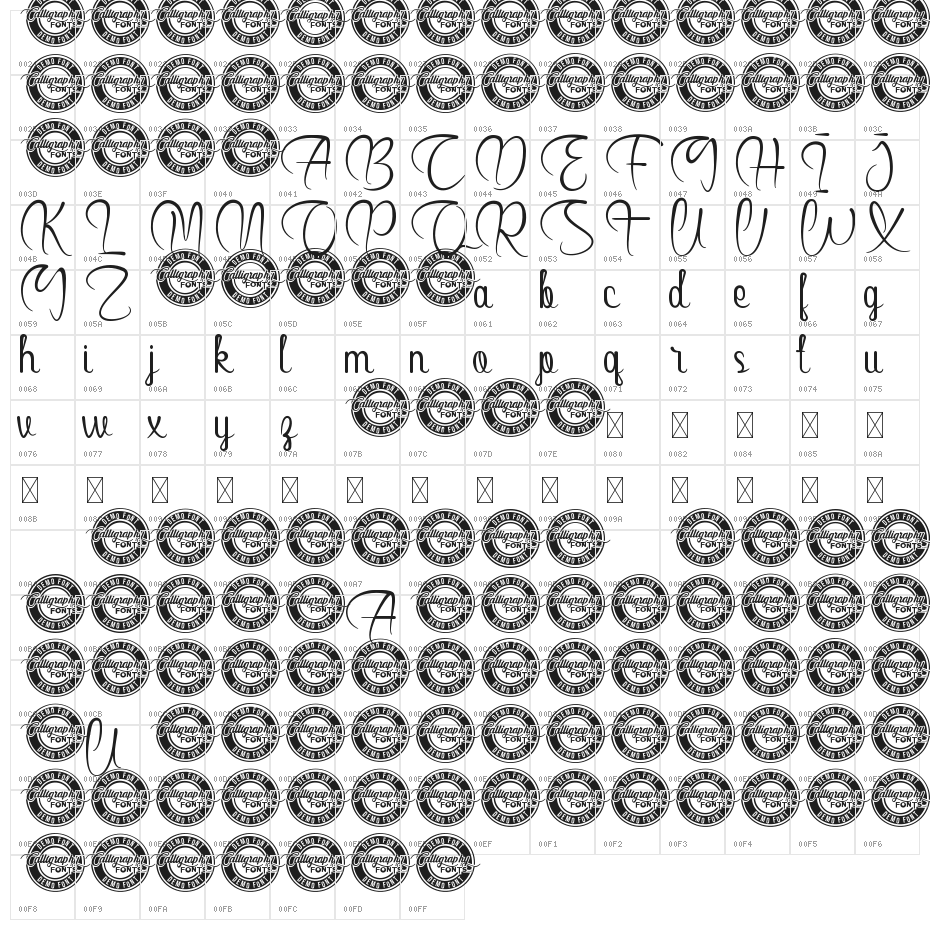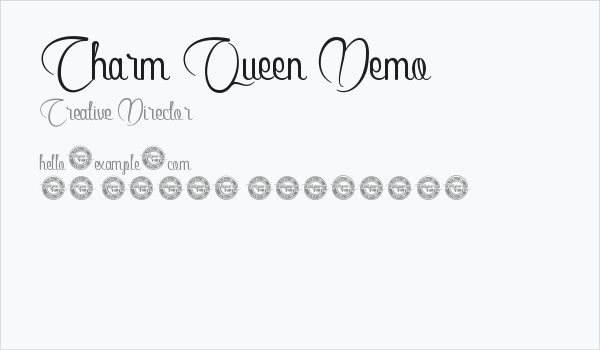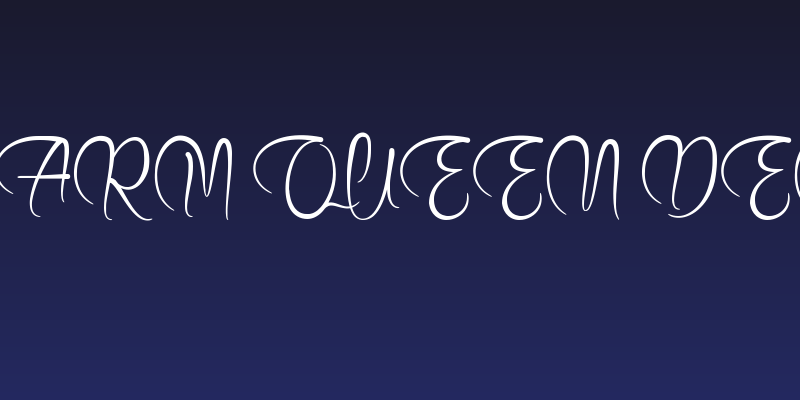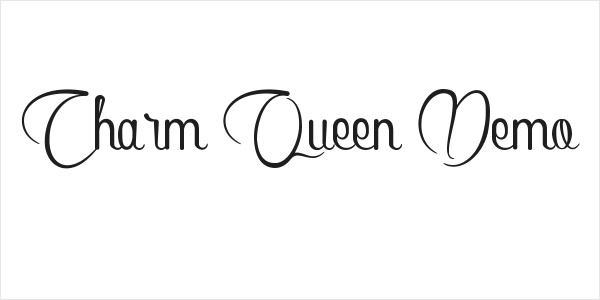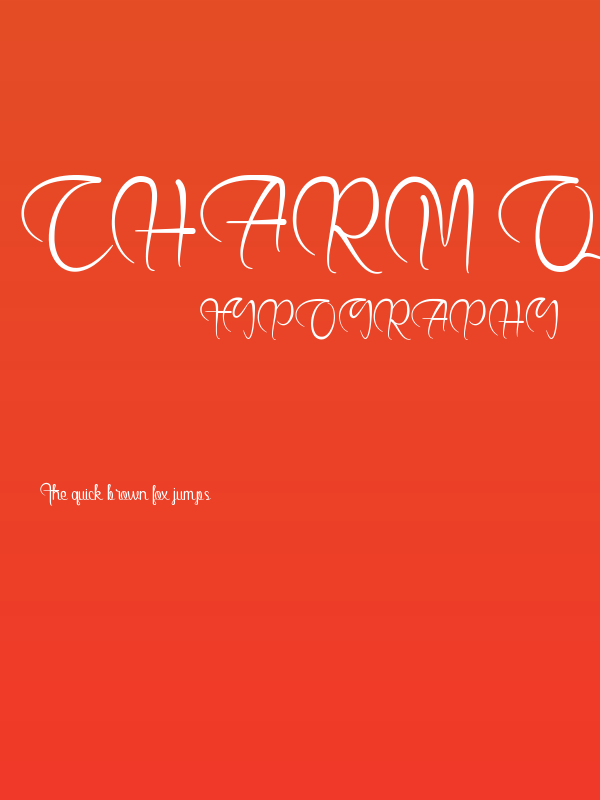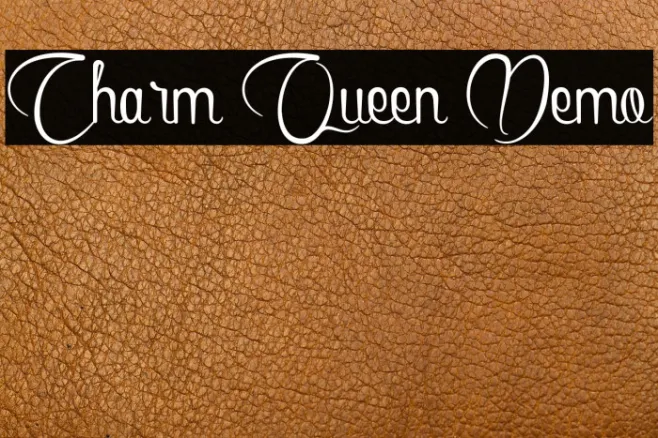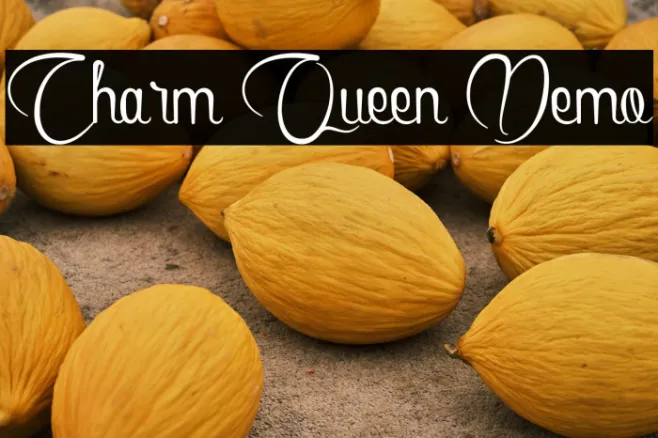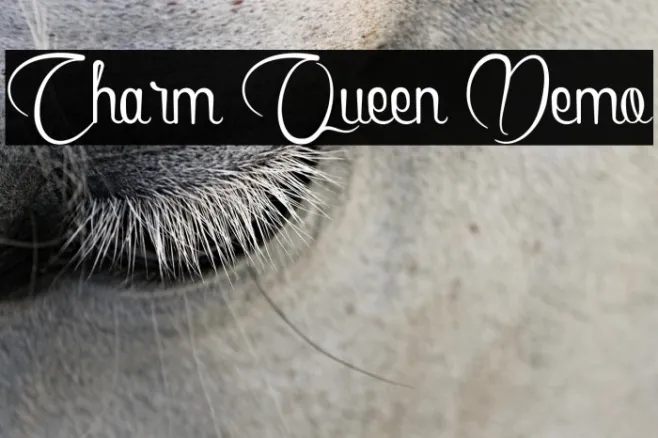
Charm Queen Demo Font
Charm Queen Demo Description
This font exhibits a unique blend of elegance and modernity, characterized by its flowing, cursive style. The uppercase letters are distinguished by their graceful, sweeping curves and delicate serifs, giving them a sophisticated appearance. The lowercase letters maintain a consistent flow, with elongated ascenders and descenders that add to the font's overall charm. The numerals are designed with a similar flair, ensuring a cohesive look across all characters. The special characters, including symbols like $, ?, &, %, !, #, *, and =, are crafted to match the font's elegant aesthetic, making them suitable for decorative purposes. This font's distinctive style makes it ideal for projects that require a touch of elegance and personality.
| Overall Style | Elegant, Modern |